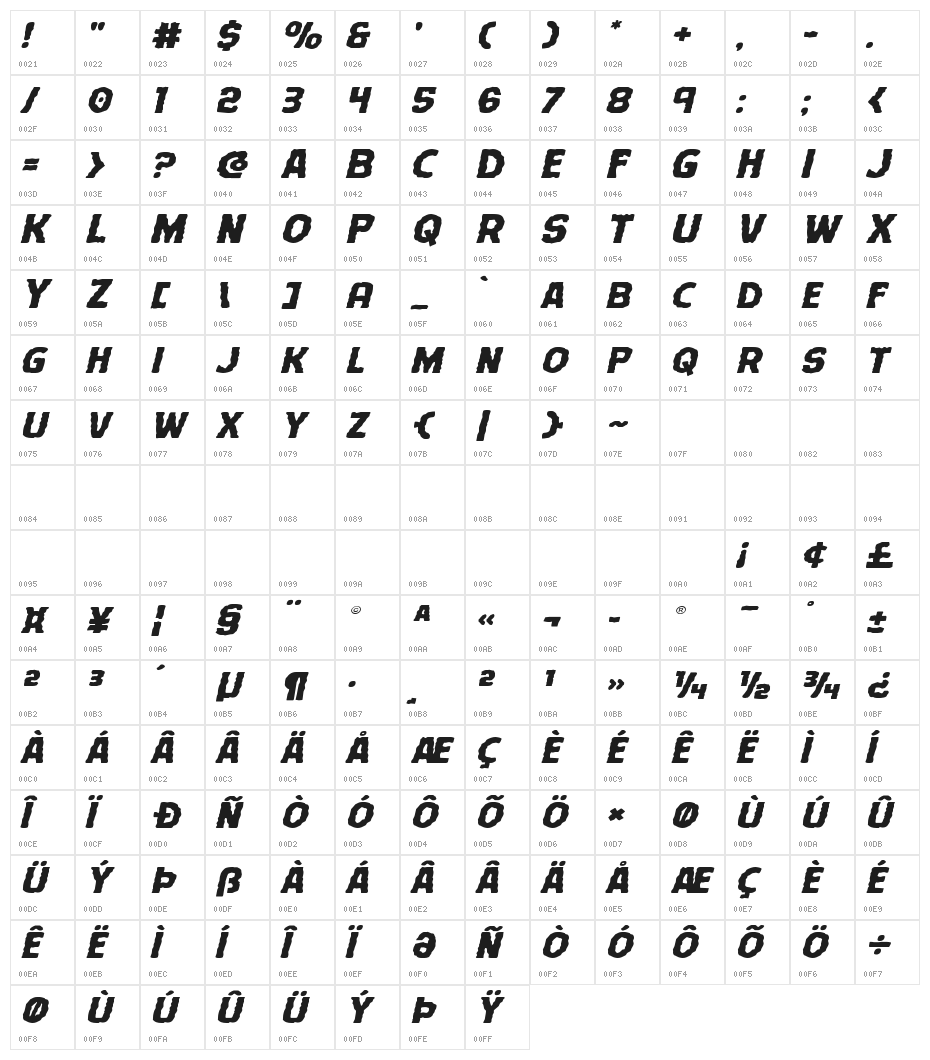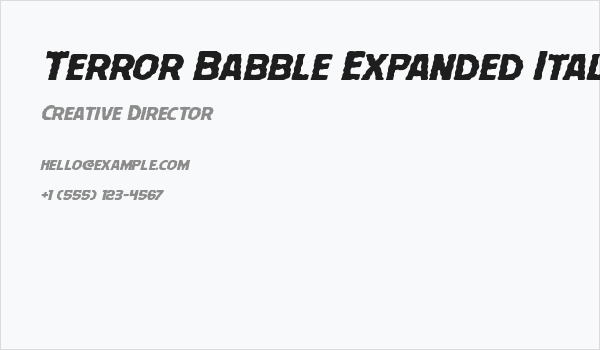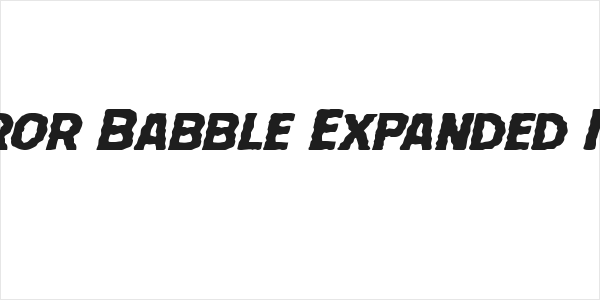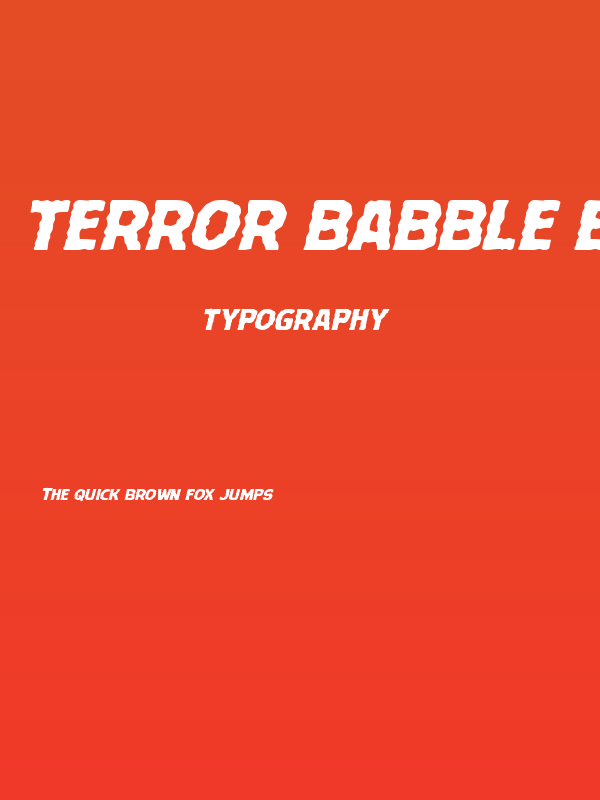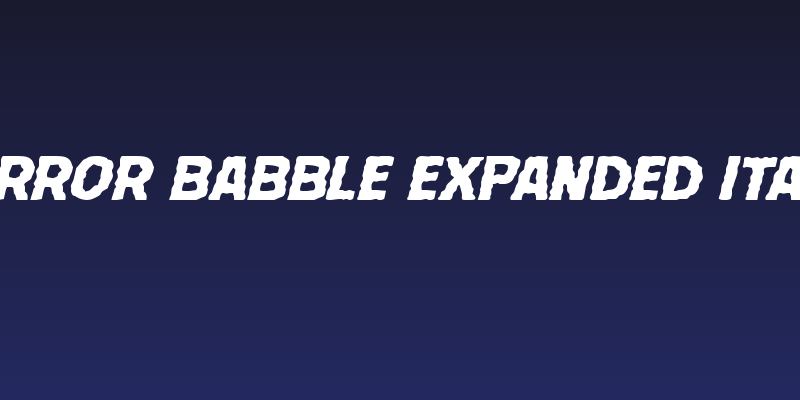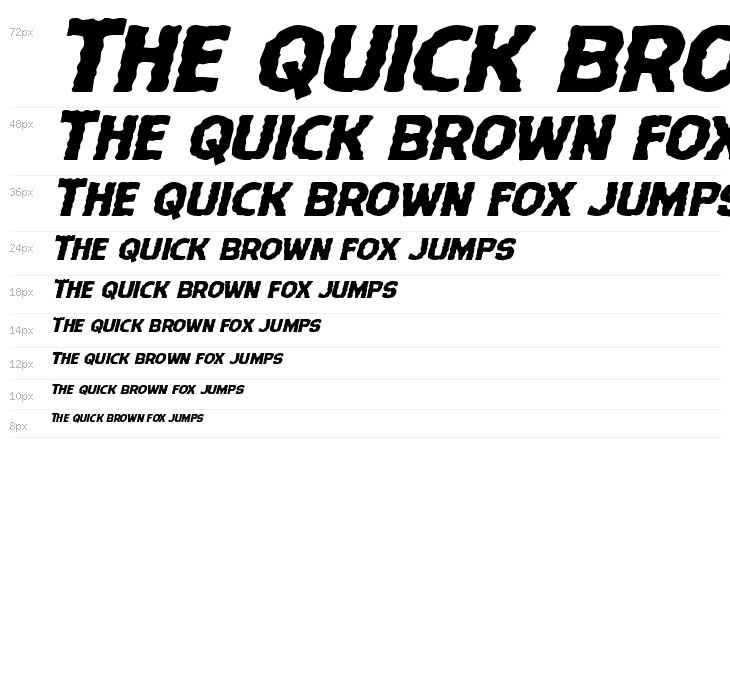
Terror Babble Expanded Italic Font
Terror Babble Expanded Italic Description
This font features a bold and dynamic style with a distinctly jagged and irregular edge, giving it a chaotic and energetic appearance. The characters are expanded and italicized, adding to the sense of movement and urgency. The uppercase and lowercase letters maintain a consistent style, with a slightly rough texture that enhances its edgy and rebellious feel. The numerals and special characters follow the same design principles, ensuring uniformity across all glyphs. This font's unique characteristics make it stand out, ideal for projects that require a bold statement.
| Proposed Projects | Ideal for horror-themed designs, edgy posters, album covers, or any project needing a bold, rebellious look. |